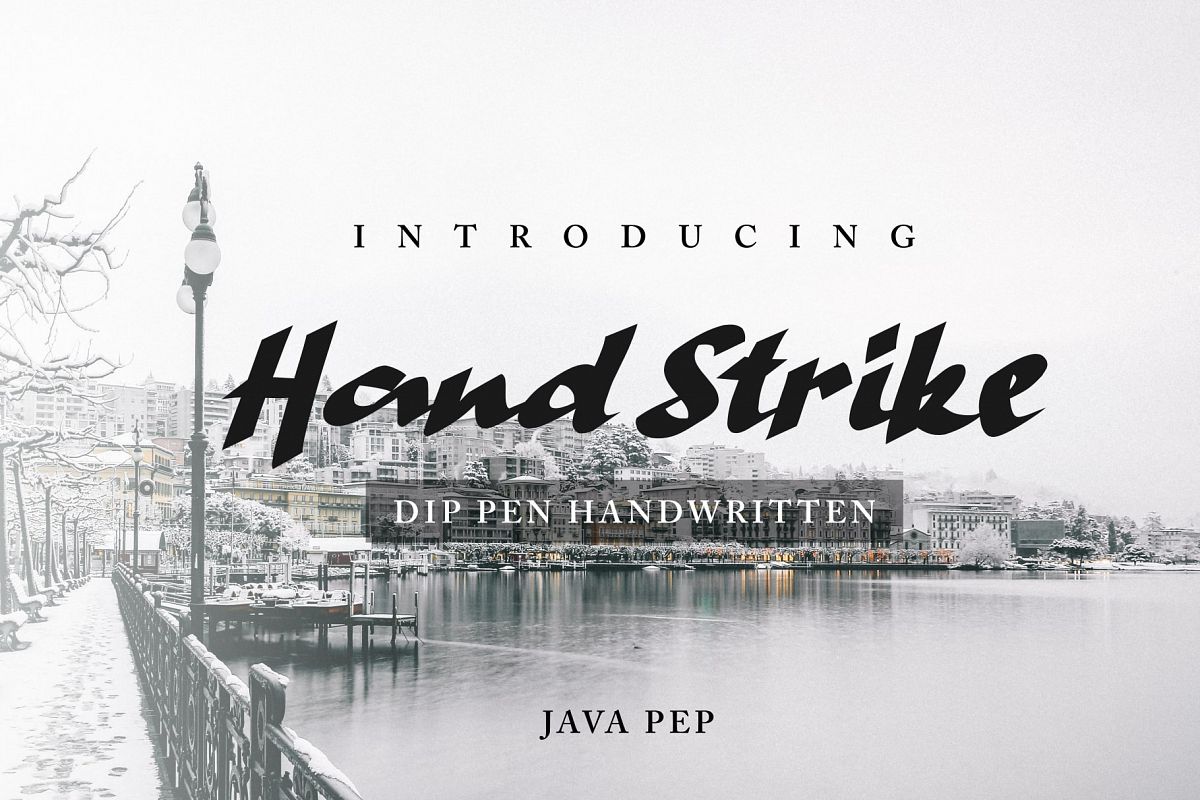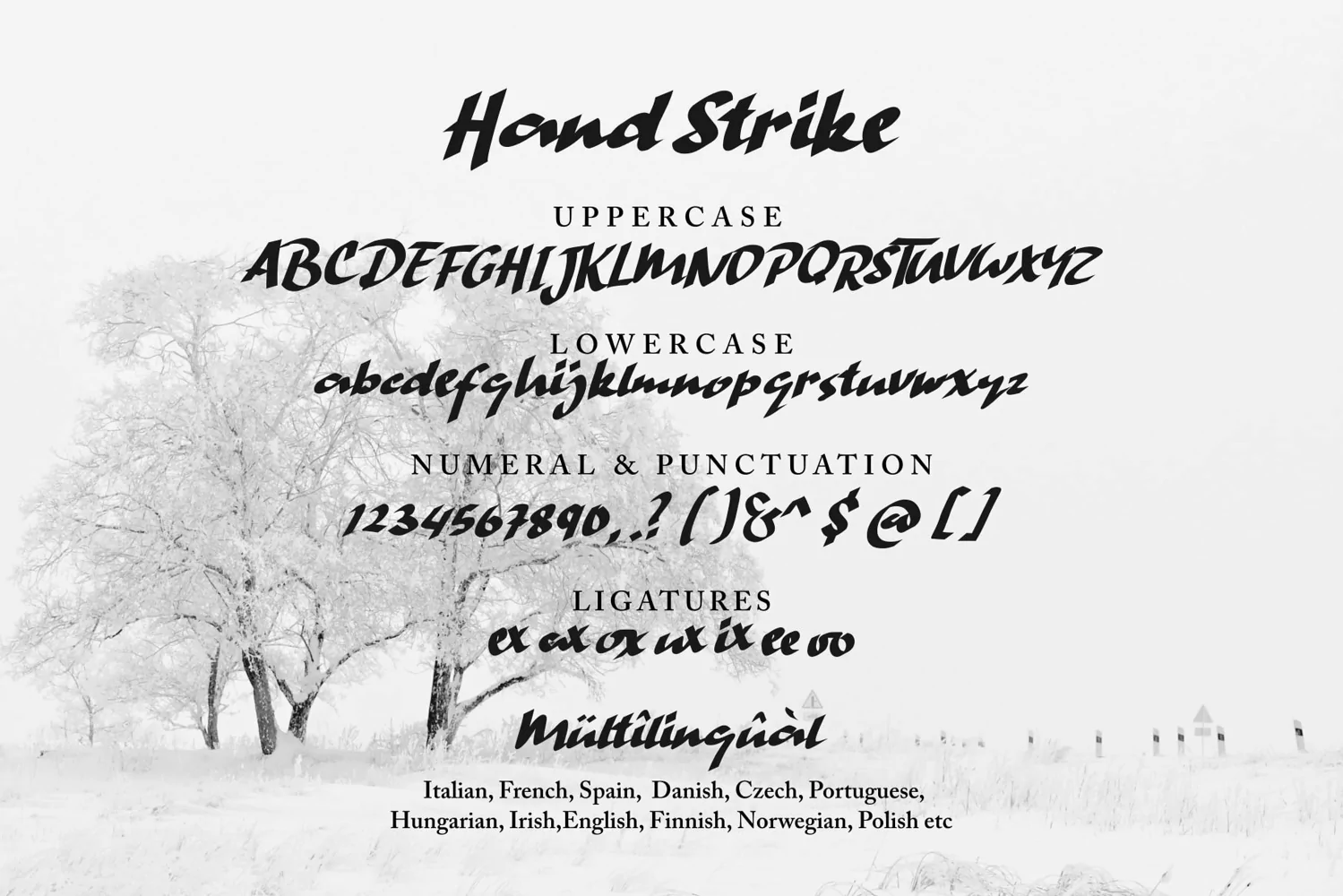
Hand Strike
Introducing Hand Strike font is dip pen handwritten. All characters is natural shape from my handwritten. Hand Srtike
font is masculine and bold characters, this font can be placed in any
design such as website header, clothing apparel, greeting card, logo,
branding etc.